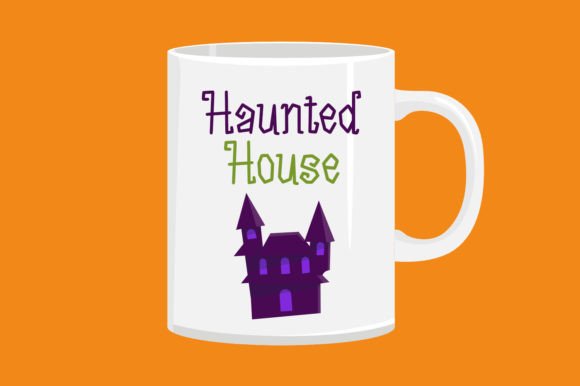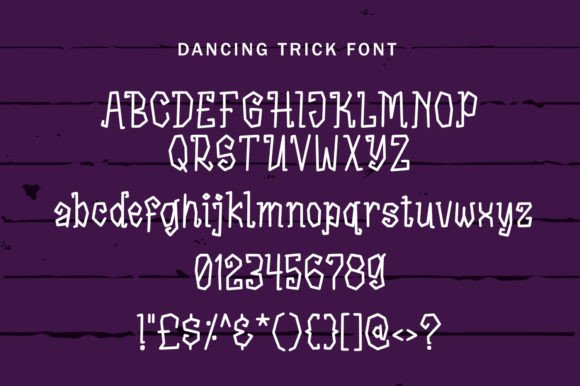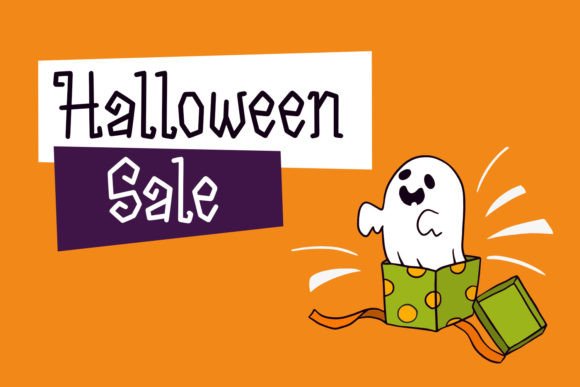
Introduction to Dancing Trick Font
Unleash your spooky creativity with Dancing Trick, a Halloween inspired Display Font.
Perfectly designed to bring a touch of the eerie and fantastical to cards, invitations, stickers or posters Its distinctive design is sure to infuse any project with an enchanting Halloween spirit.